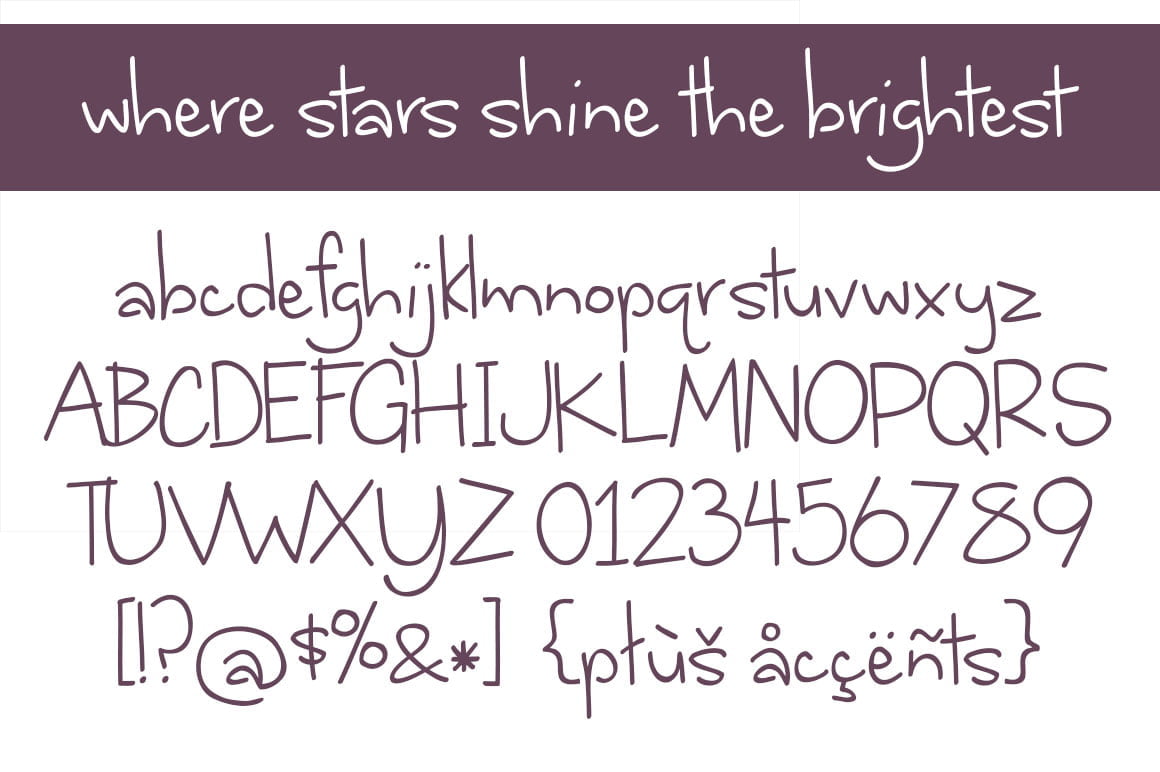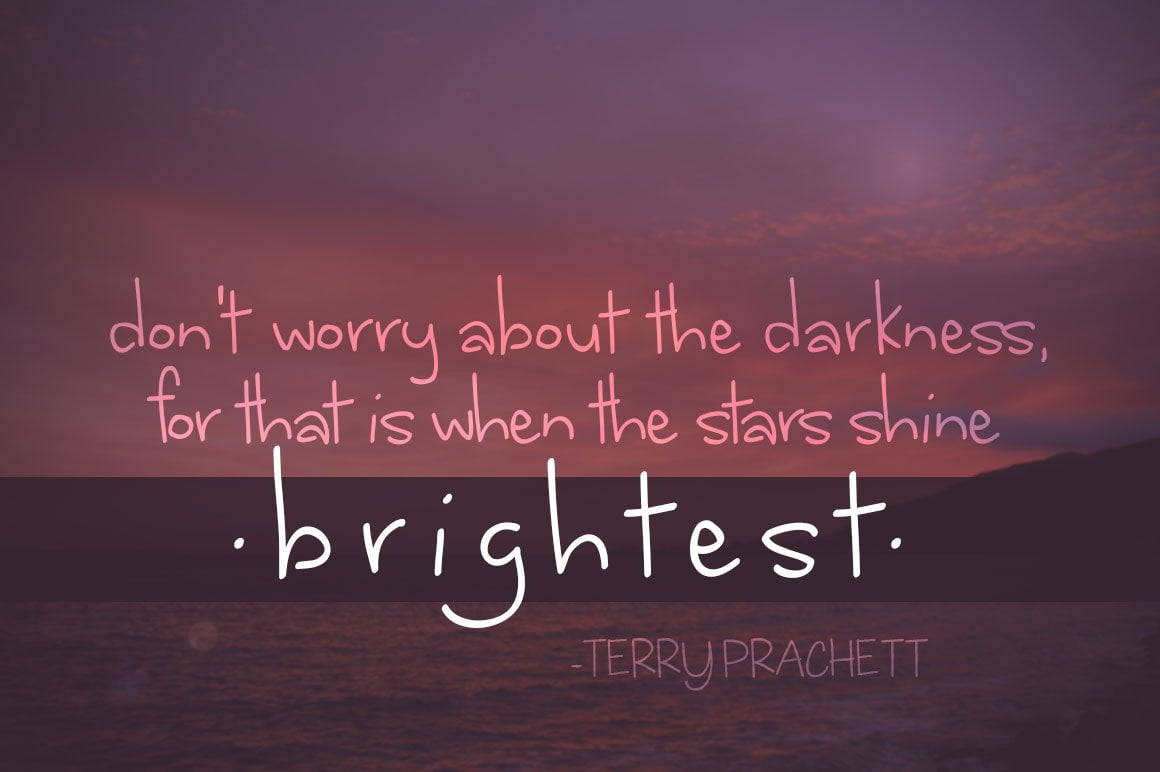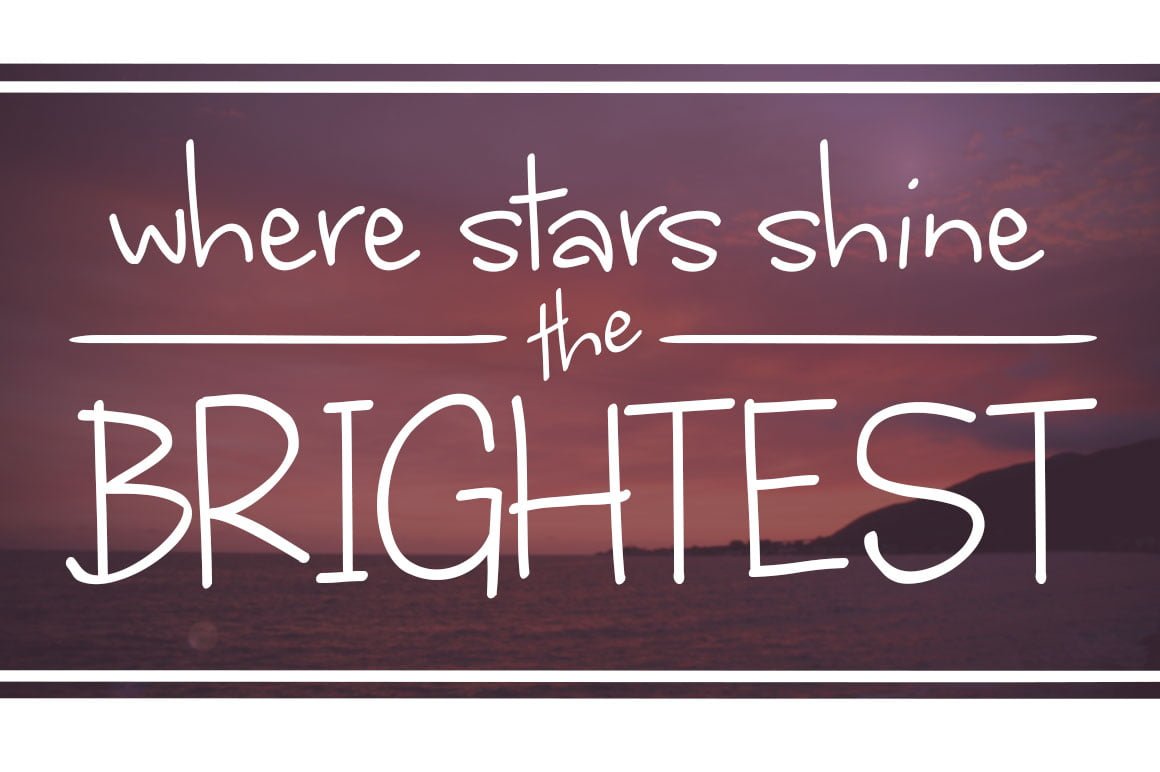
Where Stars Shine The Brightest Font
Where Stars Shine The Brightest Letters
Where Stars Shine The Brightest Quote
About the Where Stars Shine The Brightest Font
Where Stars Shine the Brightest Font is a versatile handwritten typeface that works great both for content text or headlines.
Where Stars Shine The Brightest
Where Stars Shine The Brightest- Preview Image
Where Stars Shine The Brightest Font Character Map